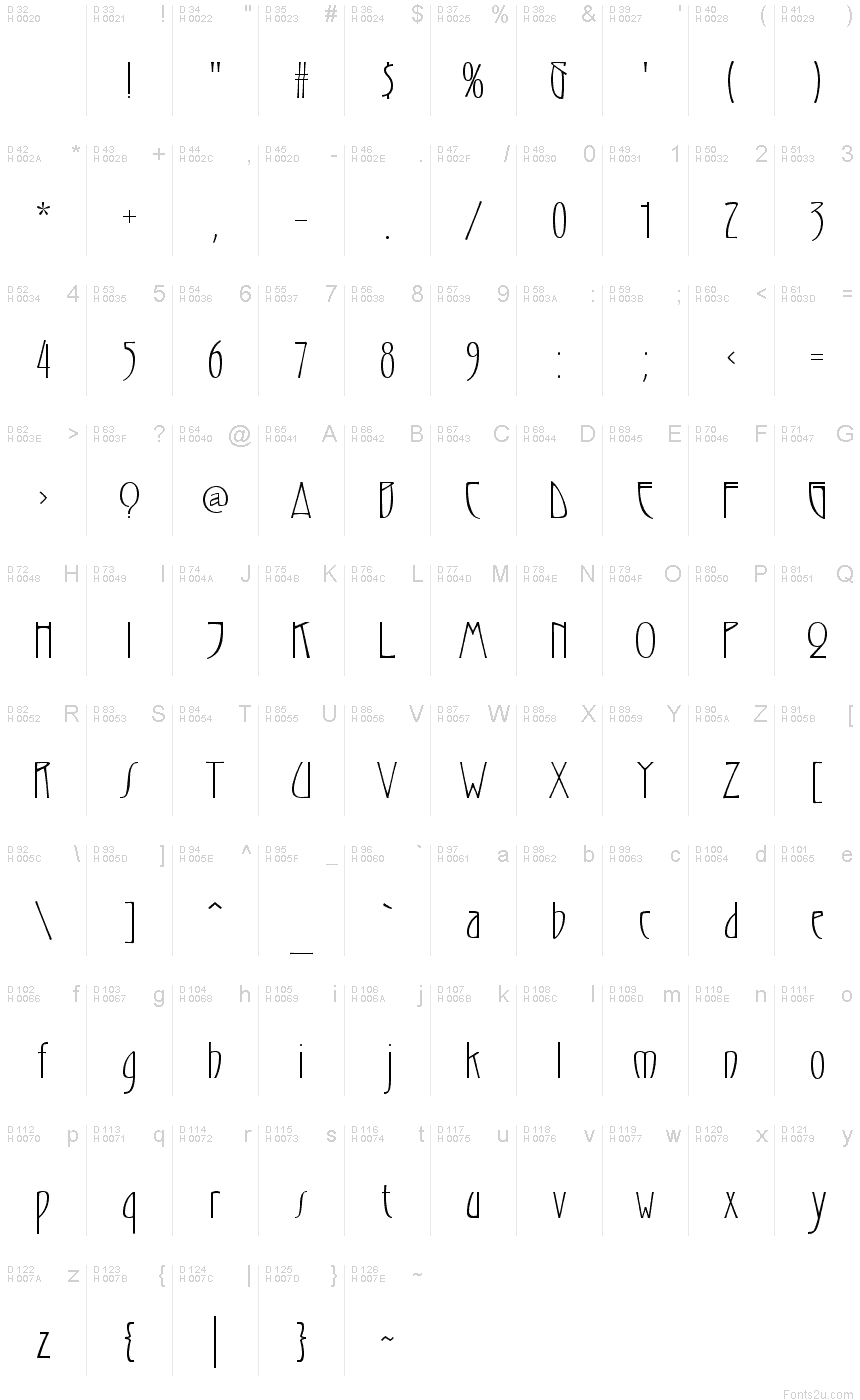
Gradl
Gradl font by The Font Bureau is a free retro display typeface with a wonderfully odd, almost architectural personality. Its tall, narrow letters feel like they’ve been drawn with a single inky stroke, curving into shield-like forms and unexpected angles that give every word a crafted, poster-era charm. The light, airy lines keep it from feeling heavy or gimmicky, so those distinctive shapes stay elegant rather than noisy.
Using Gradl, you can give headlines and wordmarks a memorable twist on event posters, book covers, boutique logos, packaging, album art, and vintage-inspired signage. The generous spacing lets the letters breathe, especially at larger sizes where the quirky curves can really shine. For longer supporting text, pair this free font with a clean geometric sans to anchor its expressive forms and keep layouts readable and refined.